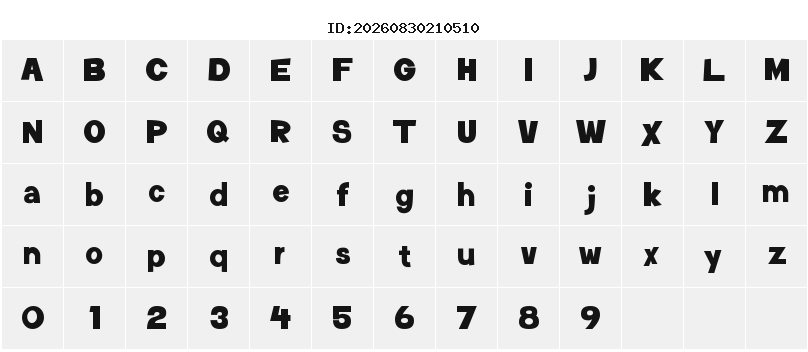
About Teletoon Lowercase V2.ttf
Teletoon Lowercase V2.ttf is a modern, elegant sans-serif font designed for ultimate readability and visual harmony. Perfect for branding, headlines, web design, and print materials.